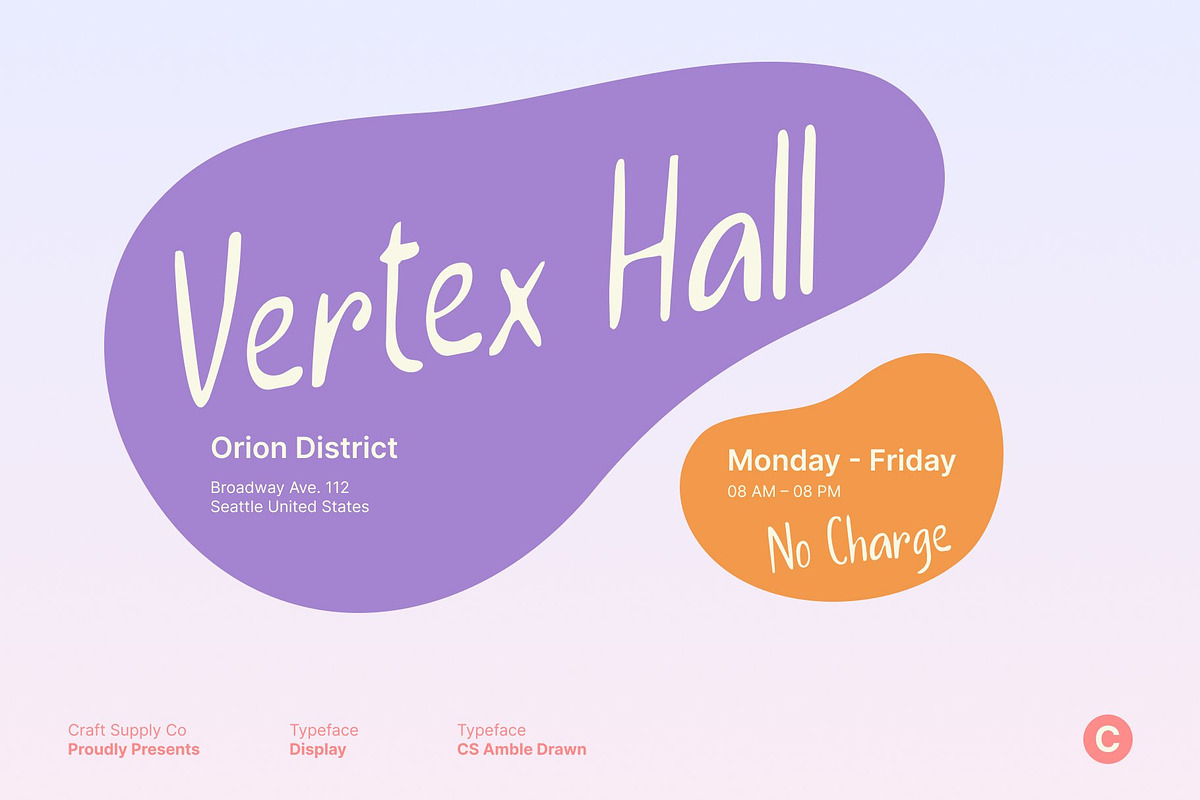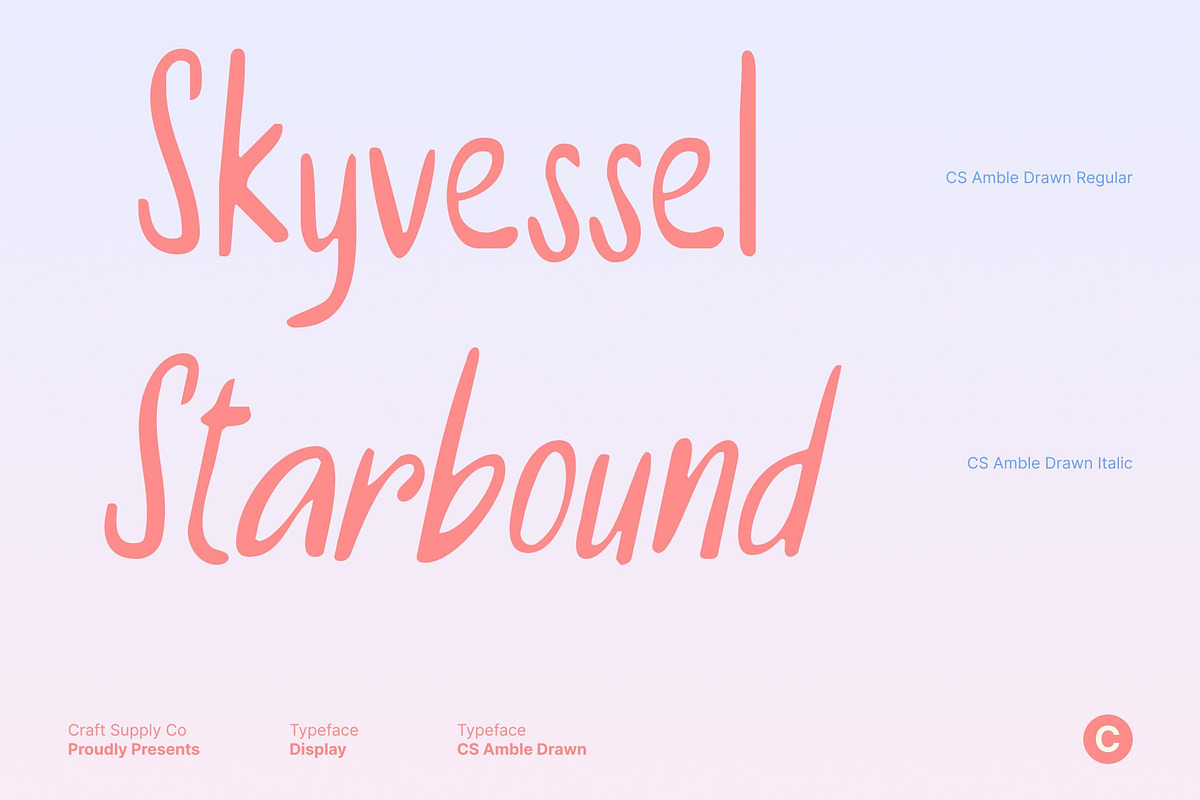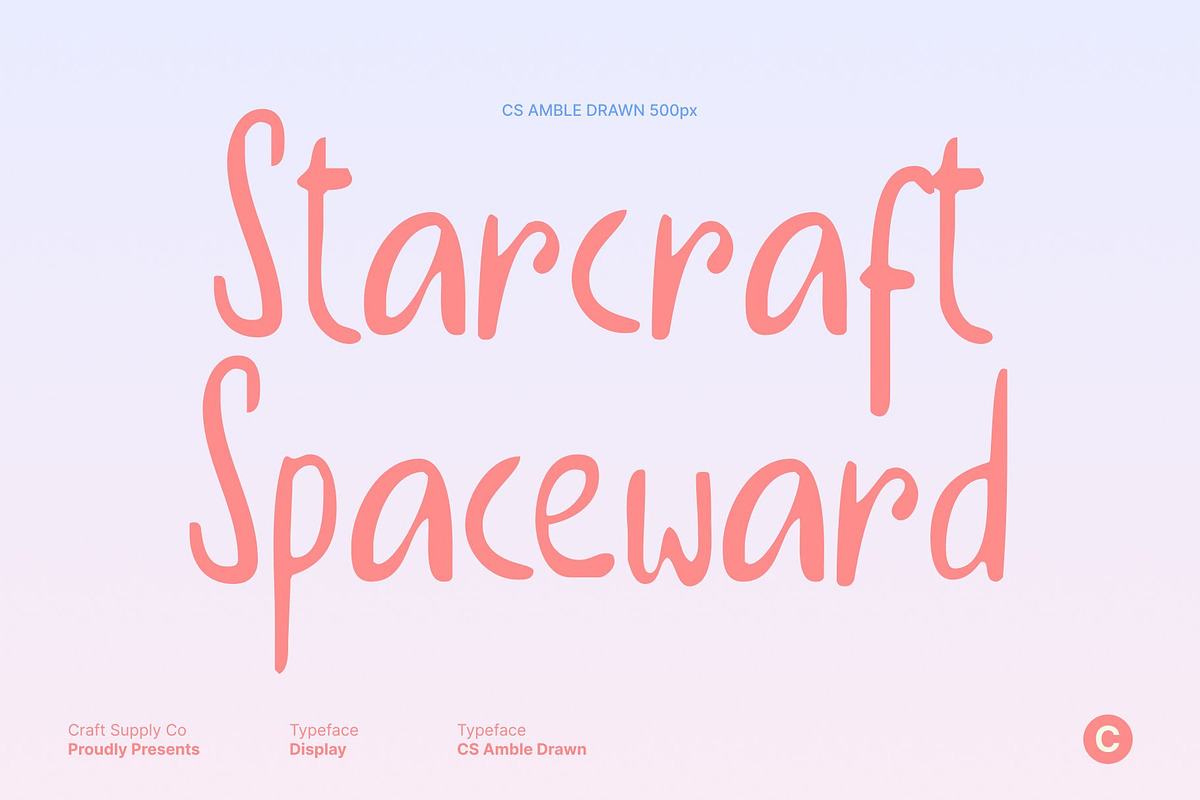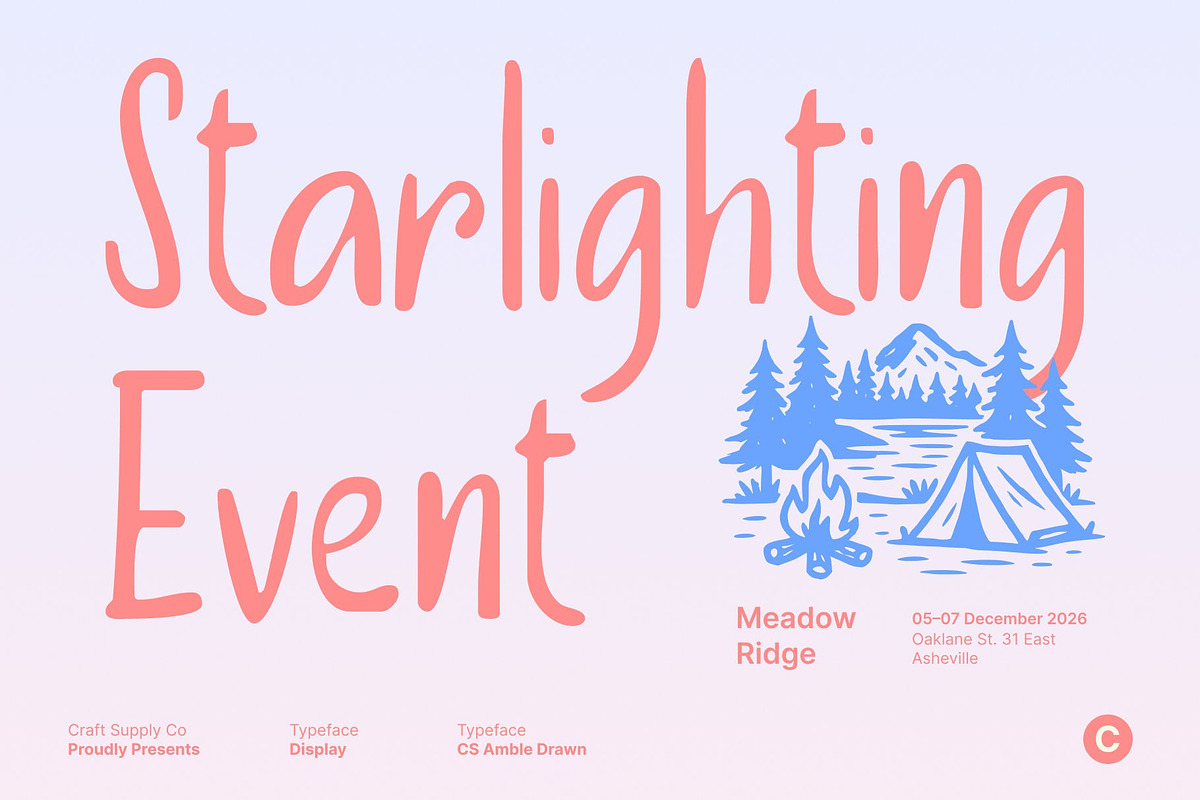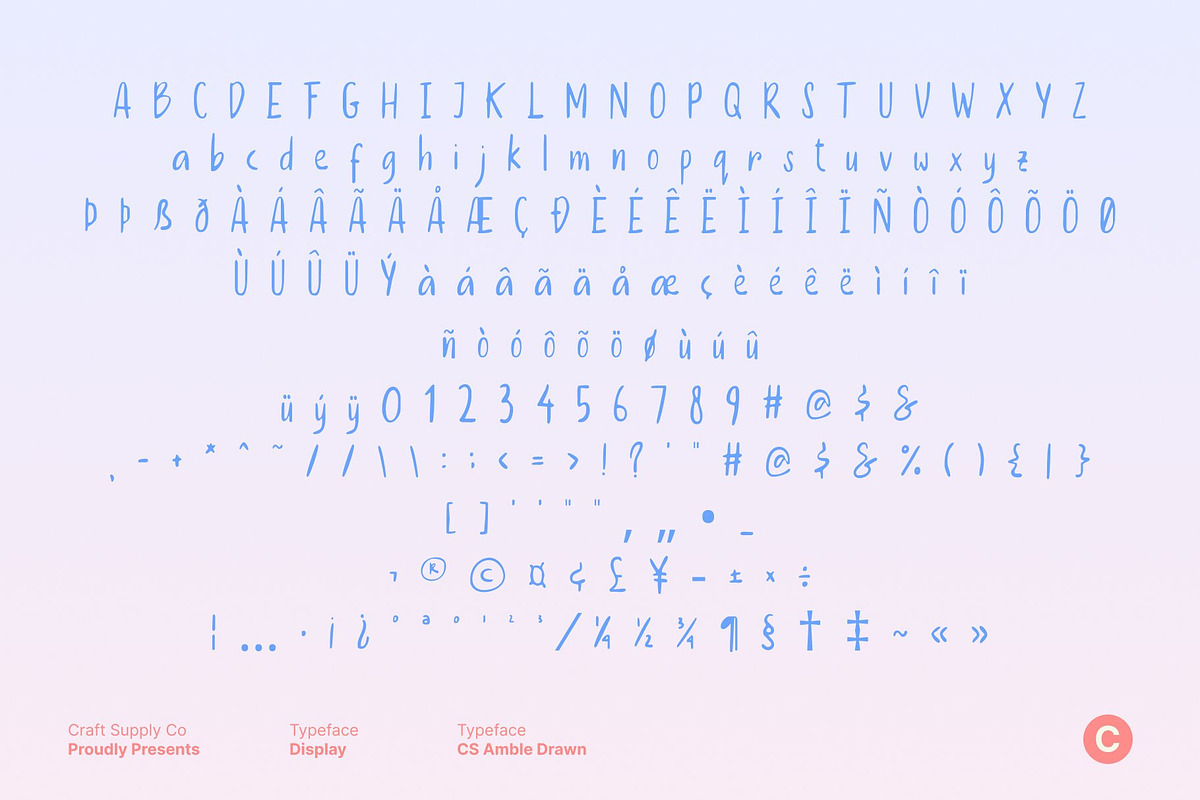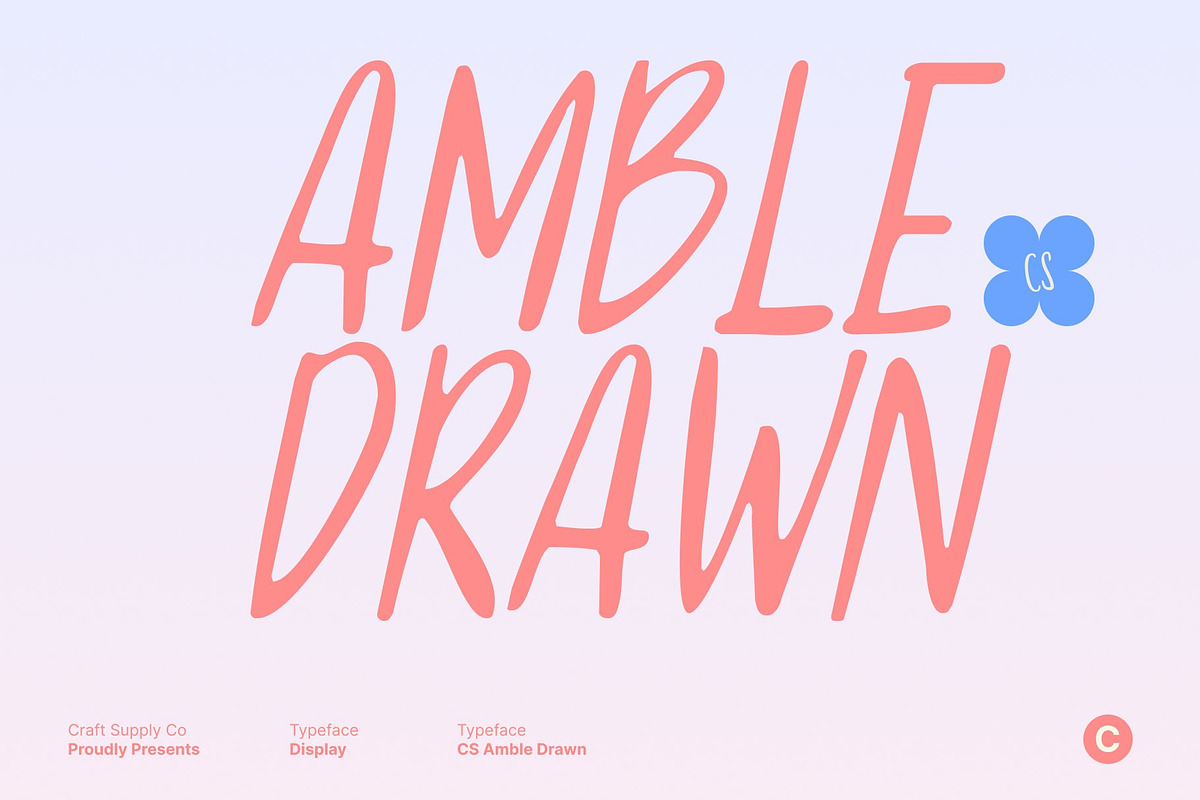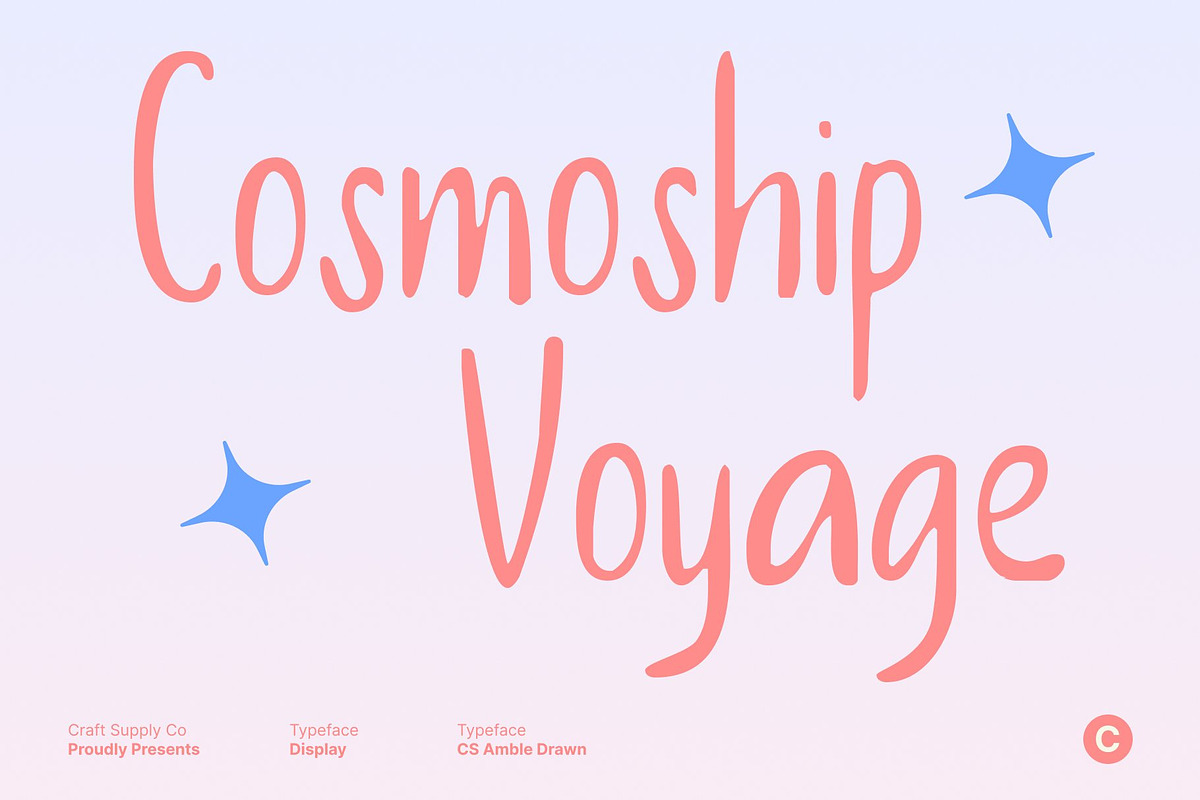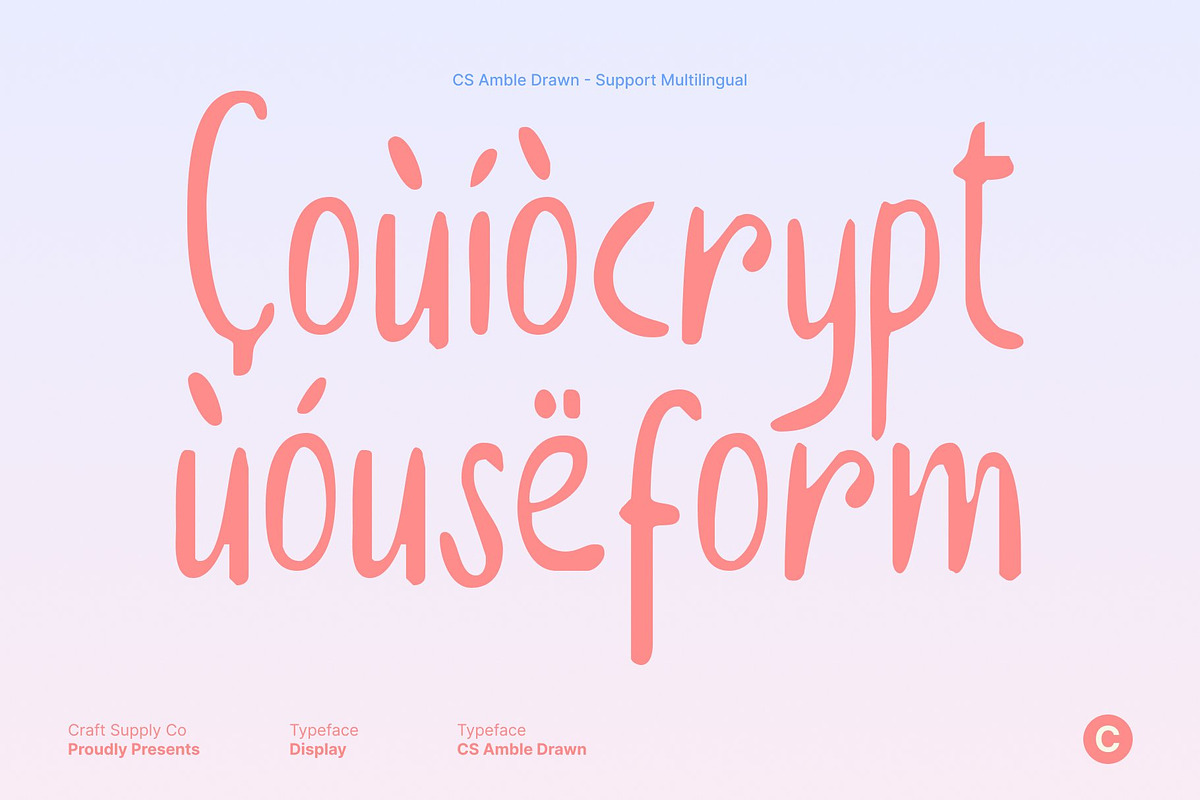
CS Amble Drawn
CS Amble Drawn – Soft Beauty with a Handwritten Heart
Beauty Handwritten Font with a Gentle Touch This is a charming beauty handwritten font that radiates warmth, softness, and authenticity. Its flowing strokes and lightly drawn texture create a welcoming, human feel, while the clean structure keeps it visually balanced. Inspired by natural handwriting, this font adds a personal touch that feels sincere, calm, and effortlessly stylish.
Handwritten Grace with Sans Serif Clarity What makes this font unique is its harmonious blend of expressive handwritten lines and the clarity of sans serif construction. The subtle drawn texture enhances its organic personality without reducing readability. This balance allows the font to feel natural yet polished, making it suitable for both short phrases and longer text compositions.
Soft Vibes for Friendly and Calm Designs With gentle curves and a relaxed rhythm, this font creates a soothing and friendly atmosphere. It evokes comfort, care, and emotional connection perfect for designs that aim to feel personal and uplifting. Each letter feels like a thoughtful handwritten note, adding warmth and approachability to every message.
Perfect for Branding and Everyday Elegance This font shines in branding, posters, postcards, packaging, letters, and lifestyle visuals. Its soft personality and versatile appeal make it ideal for beauty brands, personal projects, and modern identities that value warmth and elegance. Whether used professionally or creatively, this font brings charm, clarity, and a heartfelt handwritten touch to every design.